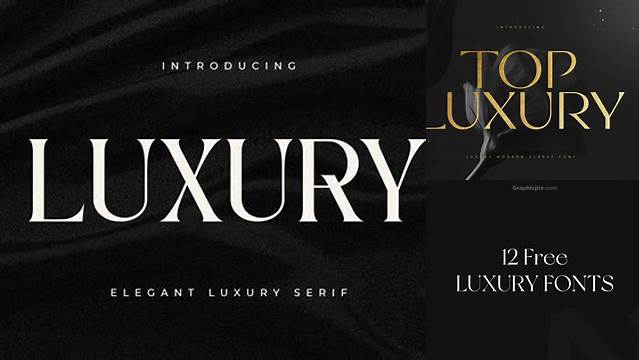
Free Luxury Fonts For Logos: Download Now
Creating a logo that exudes luxury and sophistication requires careful attention to detail, and one of the most crucial elements is the font. The right font can elevate your brand, conveying elegance, exclusivity, and high quality. Finding that perfect luxury font doesn't have to break the bank, as there are numerous options available for free download. Let's dive into the world of luxury fonts and explore where you can find them, how to choose the best one for your logo, and some stunning examples.
What Makes a Font Look Luxurious?
Before we jump into where to find these fonts, let's define what characteristics make a font appear luxurious. Several factors contribute to this perception:
- Elegance and Refinement: Luxury fonts often feature delicate strokes, graceful curves, and refined details. They avoid harsh lines or overly bold designs, opting instead for subtlety and sophistication.
- High Contrast: Fonts with a significant difference between thick and thin strokes can appear more elegant and high-end. This contrast adds visual interest and a sense of artistry.
- Serif or Sans-Serif: Both serif and sans-serif fonts can convey luxury, depending on their design. Serif fonts, with their small decorative strokes, tend to evoke a classic, traditional sense of luxury. Sans-serif fonts, which are cleaner and more modern, can also appear luxurious when designed with careful attention to detail and balance.
- Spacing and Kerning: The spacing between letters (kerning) is crucial. Generous spacing can create a sense of openness and sophistication, while poor kerning can make a font look cluttered and cheap.
- Timelessness: Luxury fonts generally avoid trendy or overly stylized designs. They aim for a timeless quality that will remain elegant and relevant for years to come.
When selecting a luxury font for your logo, consider these elements and how they align with your brand's identity. The font should not only look beautiful but also communicate the values and essence of your brand.
When downloading free fonts, always ensure that you are using a reputable website and that you understand the font's license. Some fonts may be free for personal use but require a commercial license for business purposes.
Tips for Choosing the Best Luxury Font for Your Logo
Selecting the right luxury font for your logo is a crucial step in creating a brand identity that resonates with your target audience. Here are some tips to help you make the best choice:
- Consider Your Brand Identity: Your font should reflect your brand's personality and values. Are you aiming for classic elegance, modern sophistication, or something else entirely? Choose a font that aligns with your brand's overall aesthetic.
- Think About Readability: While aesthetics are important, readability is paramount. Your logo should be easily legible, even at small sizes. Avoid overly ornate or stylized fonts that can be difficult to read.
- Pay Attention to Kerning: As mentioned earlier, kerning (the spacing between letters) is crucial. Poor kerning can make a font look unprofessional and cheap. Choose a font with good kerning or be prepared to adjust it manually.
- Test the Font in Different Sizes and Contexts: Before finalizing your choice, test the font in various sizes and contexts. See how it looks on your website, business cards, and other marketing materials. Ensure that it remains legible and visually appealing in all situations.
Choosing the right luxury font for your logo is an essential part of branding. By understanding what makes a font look luxurious, knowing where to find free options, and following the tips outlined above, you can create a logo that exudes elegance, sophistication, and high quality. Remember to always consider your brand identity and target audience when making your selection, and don't be afraid to experiment with different fonts until you find the perfect fit. So go ahead, start exploring the world of luxury fonts and elevate your brand today!